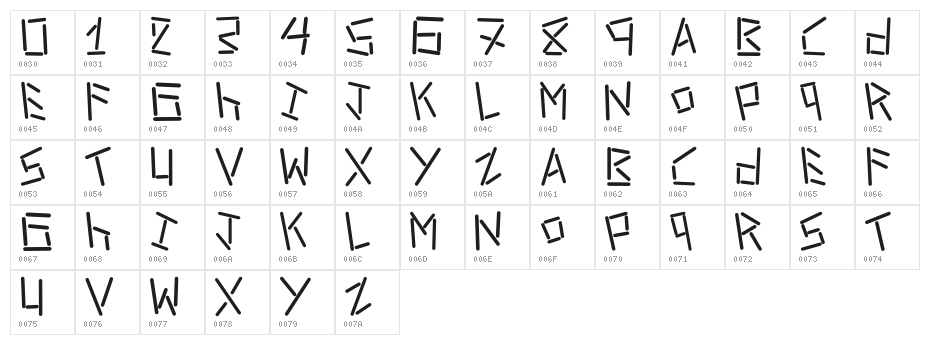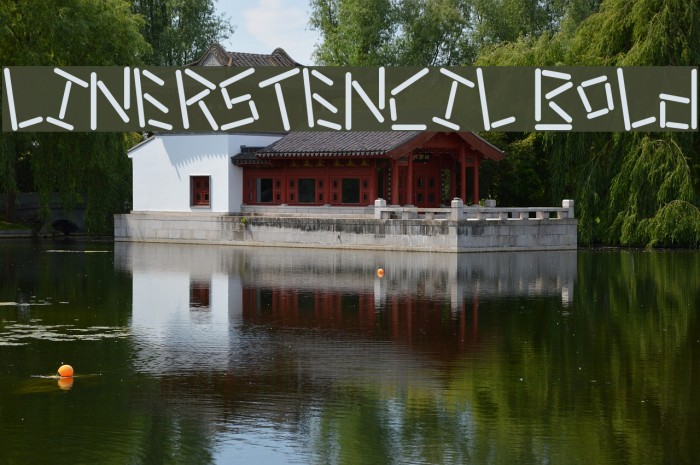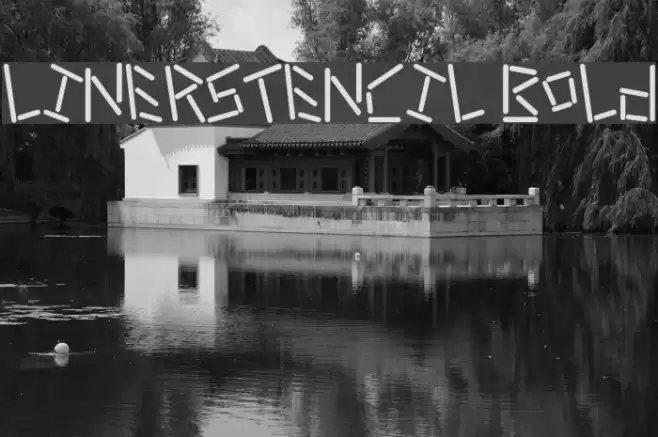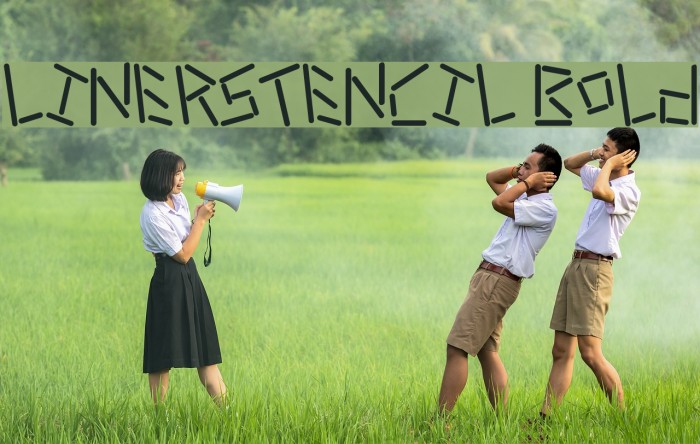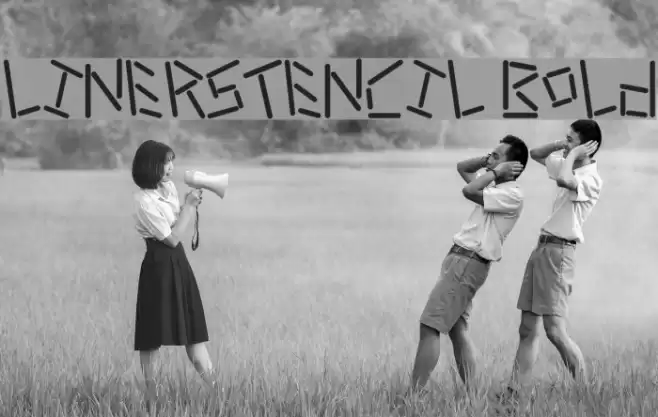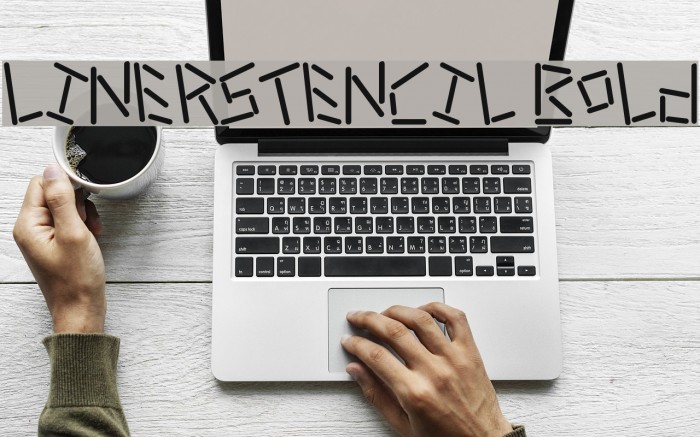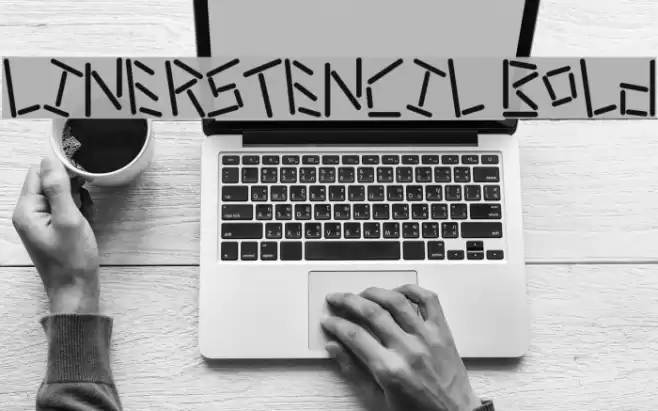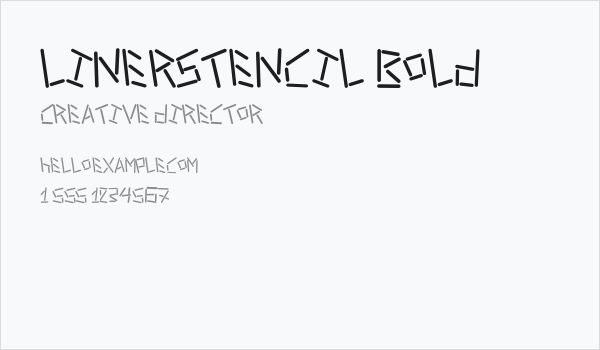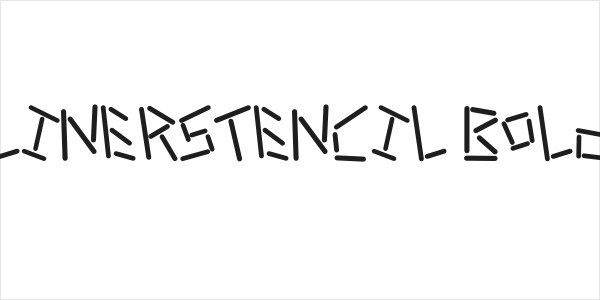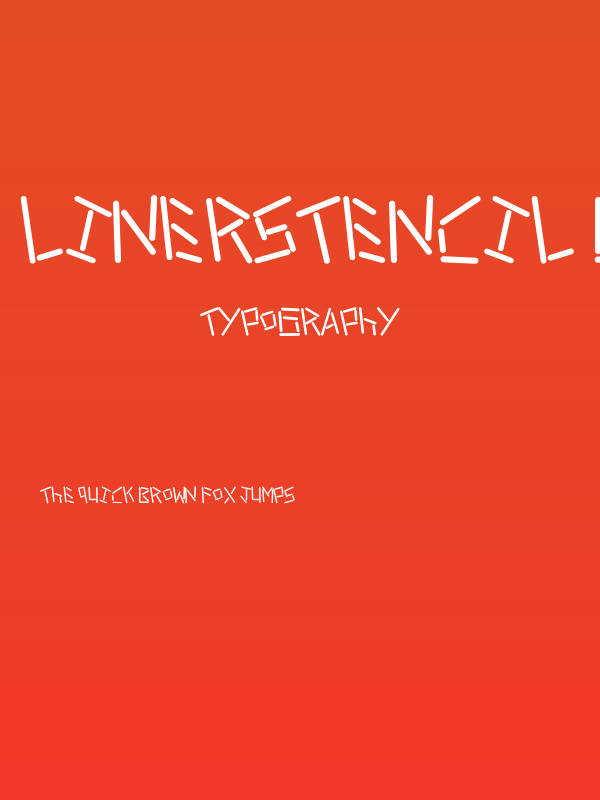
linerstencil bold Font
linerstencil bold Description
This font features a bold, stencil-like design with a modern and geometric aesthetic. Each character is composed of thick, straight lines and sharp angles, creating a sense of structure and precision. The breaks in the lines give it a distinctive stencil appearance, making it ideal for designs that require a strong, industrial feel. The uppercase and lowercase letters maintain a consistent style, while the numerals and special characters complement the overall look. This font is particularly suitable for projects that aim to convey a sense of boldness and modernity.
| Proposed Projects | Ideal for branding, posters, signage, and any project needing a strong, modern look. |